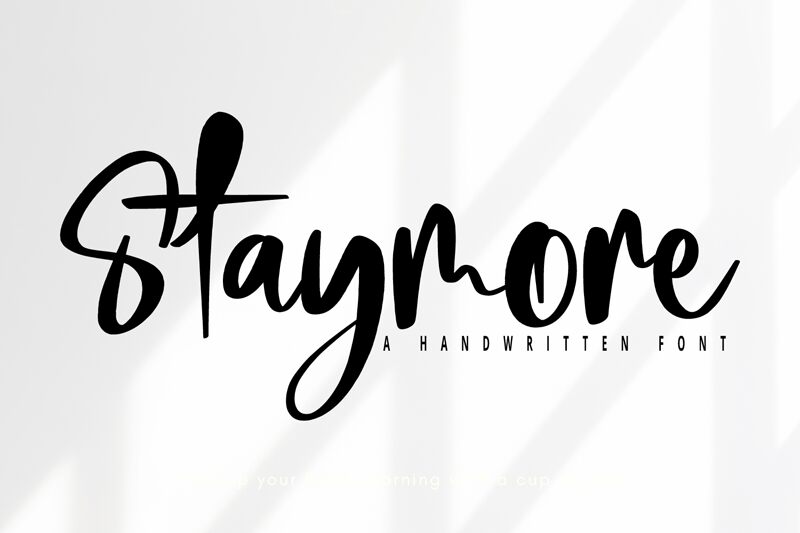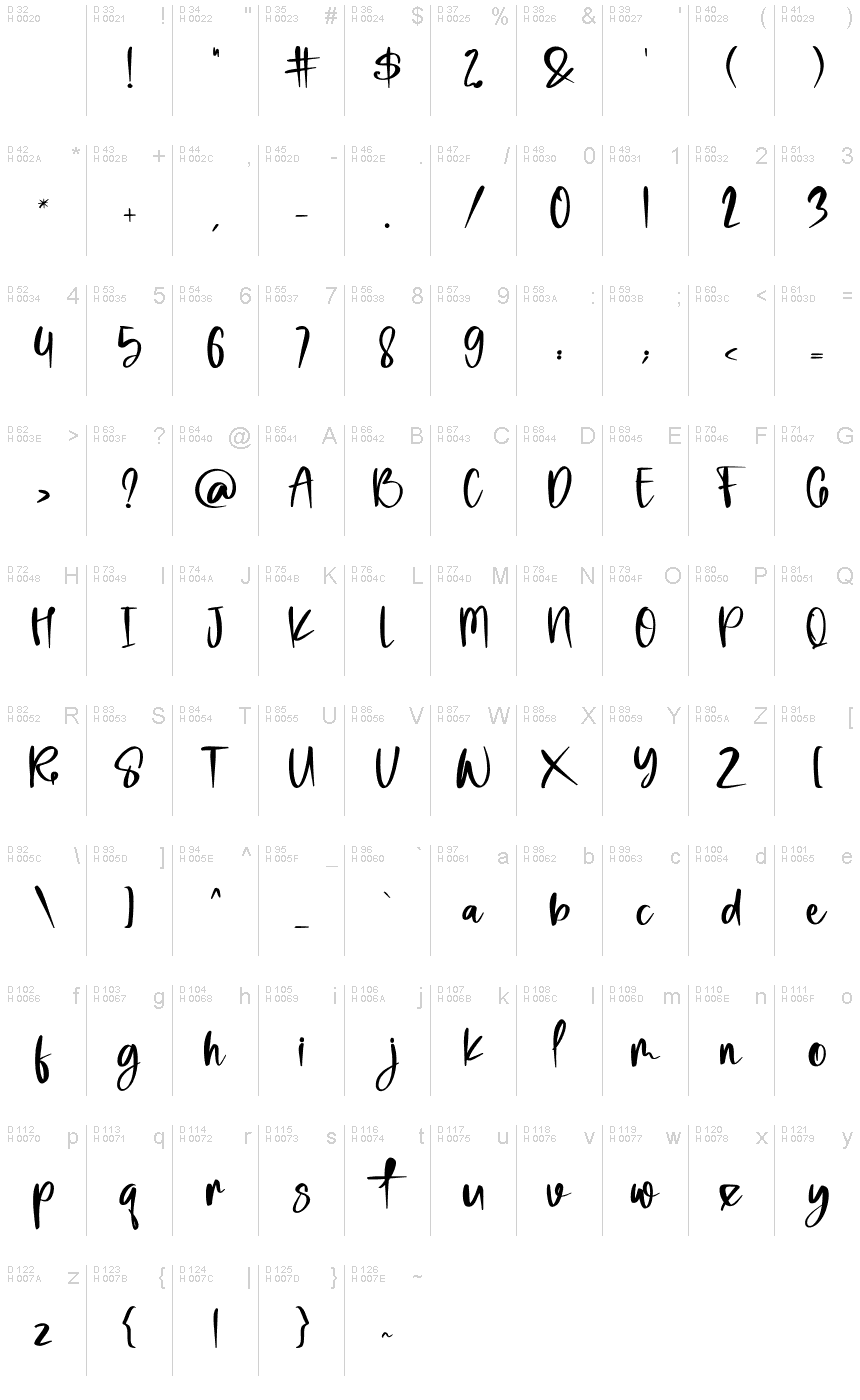
Staymore
Staymore, designed by Al Ghul, is a captivating handwritten font that adds a touch of elegance to any project. Its fluid strokes and graceful curves make it perfect for creating stunning wedding invitations or romantic quotes. The semi-bold width of Staymore lends itself well to eye-catching headlines and logos, while its versatility also makes it suitable for crafting charming greeting cards or personalized stationery. With Staymore, you can effortlessly infuse your designs with a sense of warmth and sophistication, making it an ideal choice for projects that require a unique and refined touch.